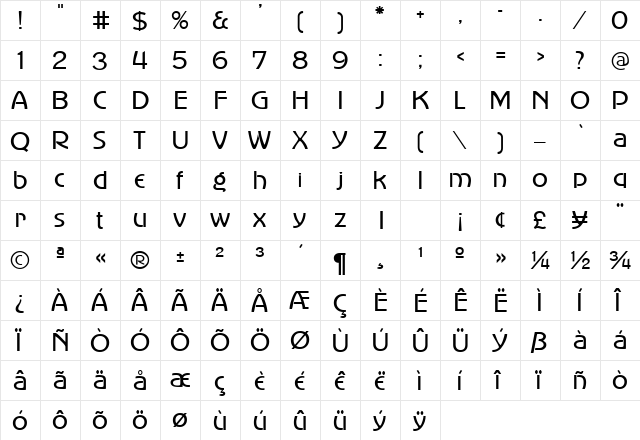
Advertiser Regular Font Preview
Advertiser Regular
Design Context for Advertiser Typeface
Advertiser takes a measured approach to typography — its balanced proportions and neutral character make it a reliable workhorse for both digital and print work.